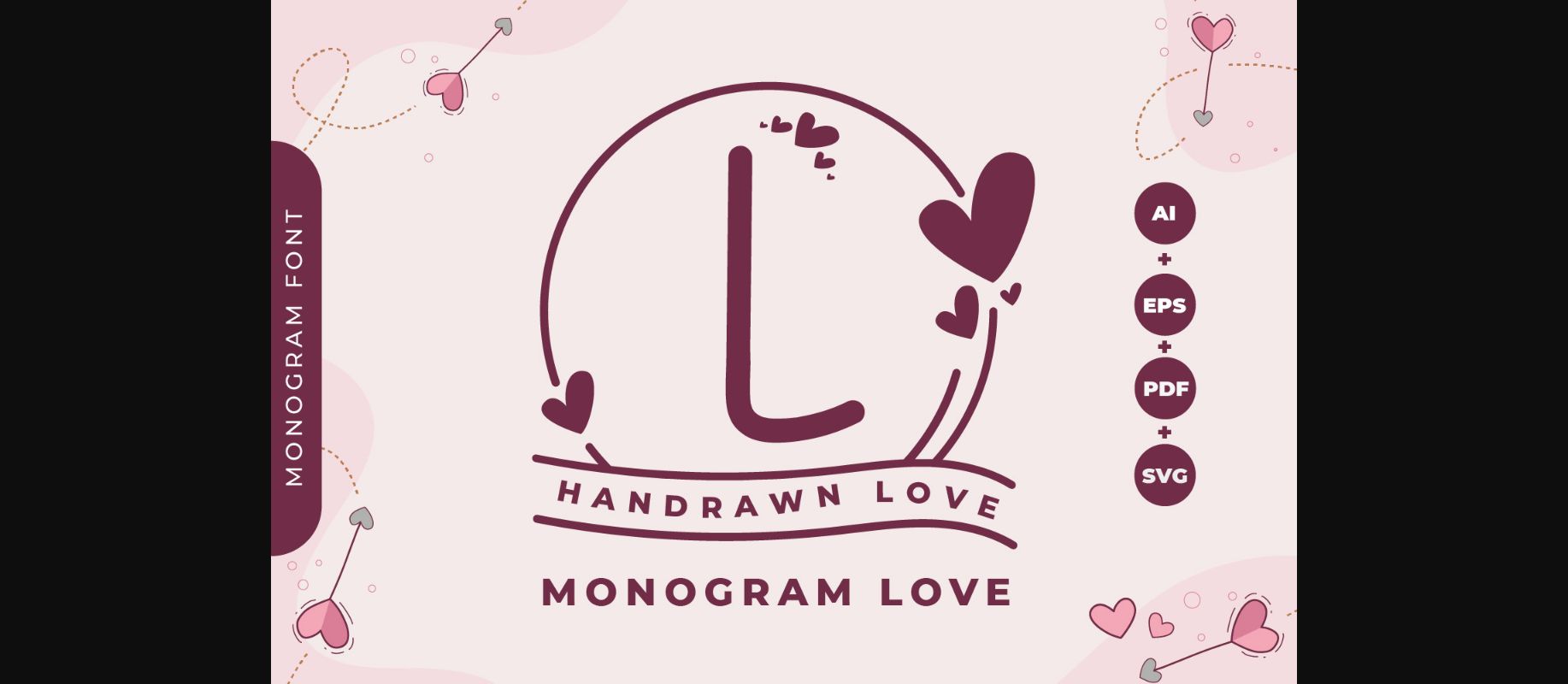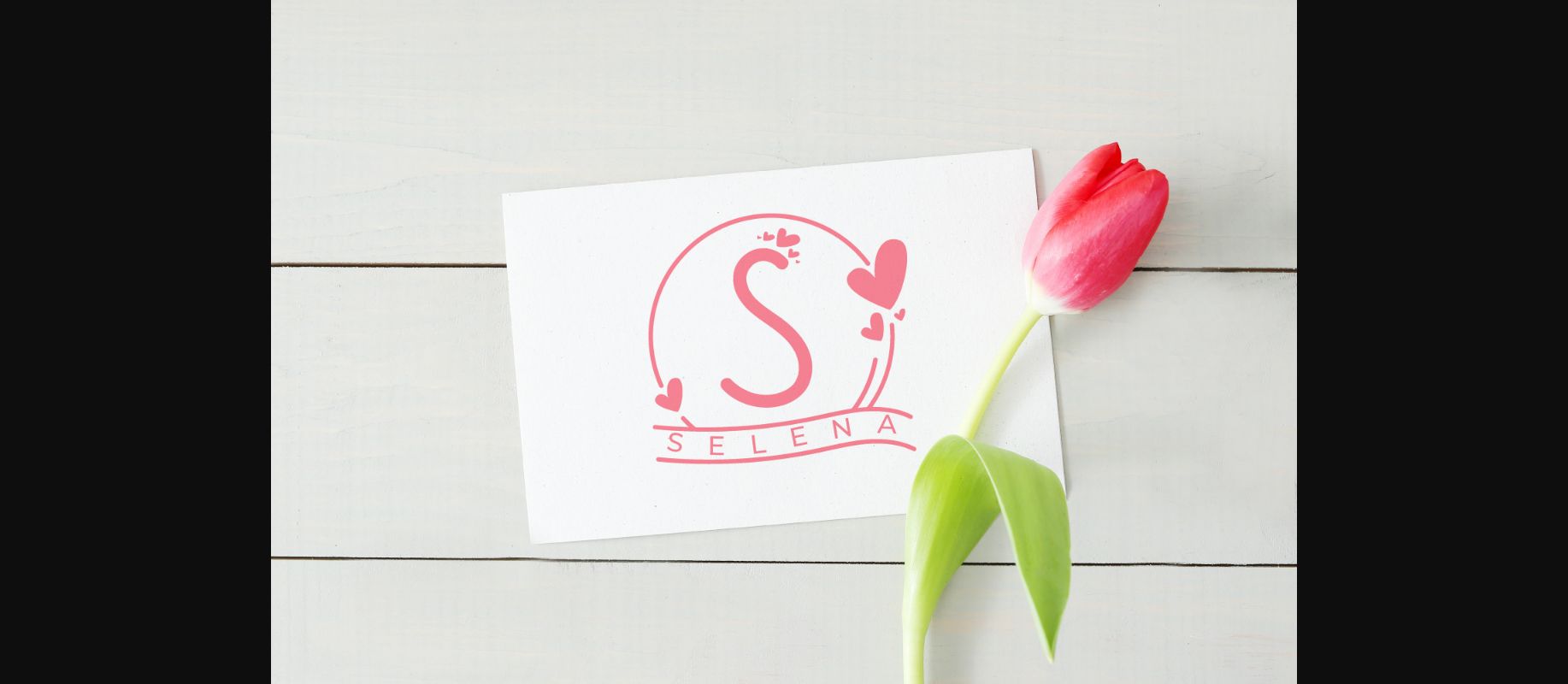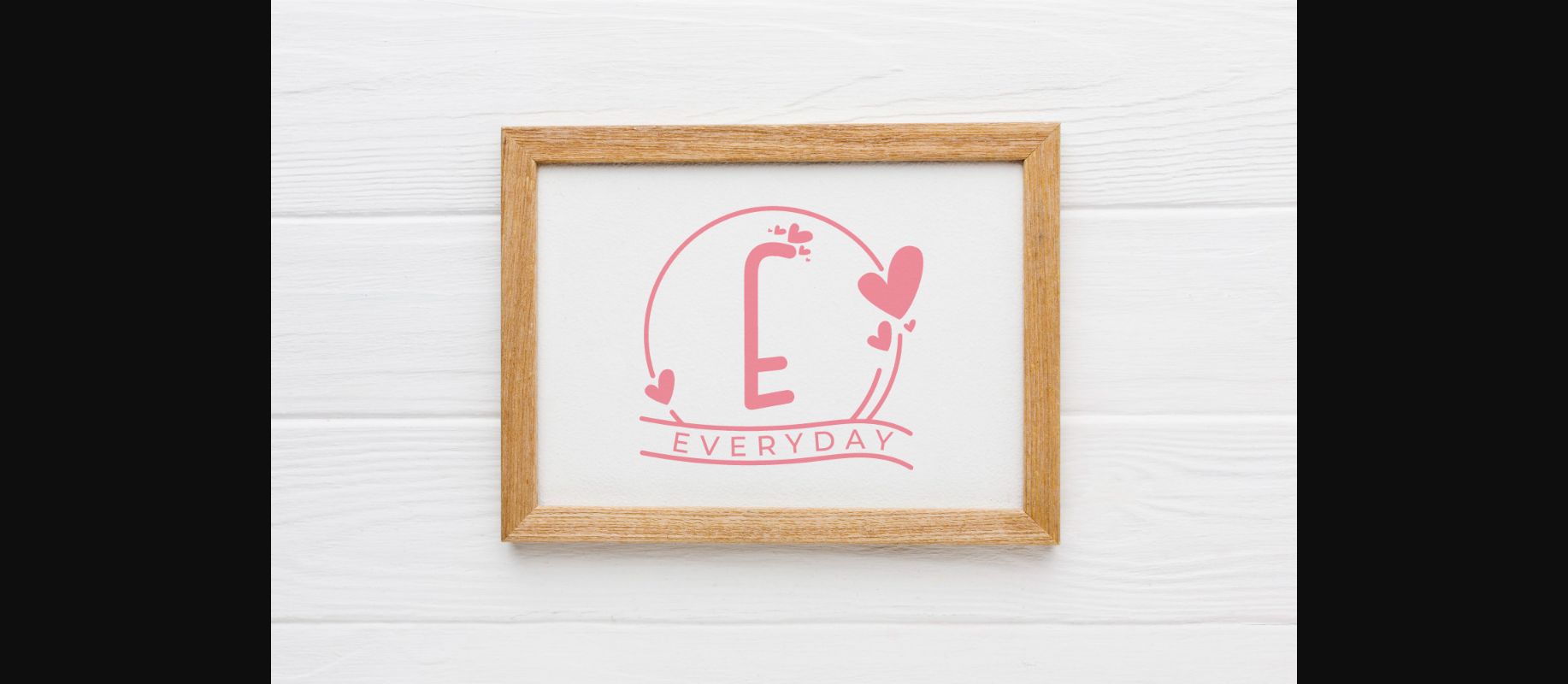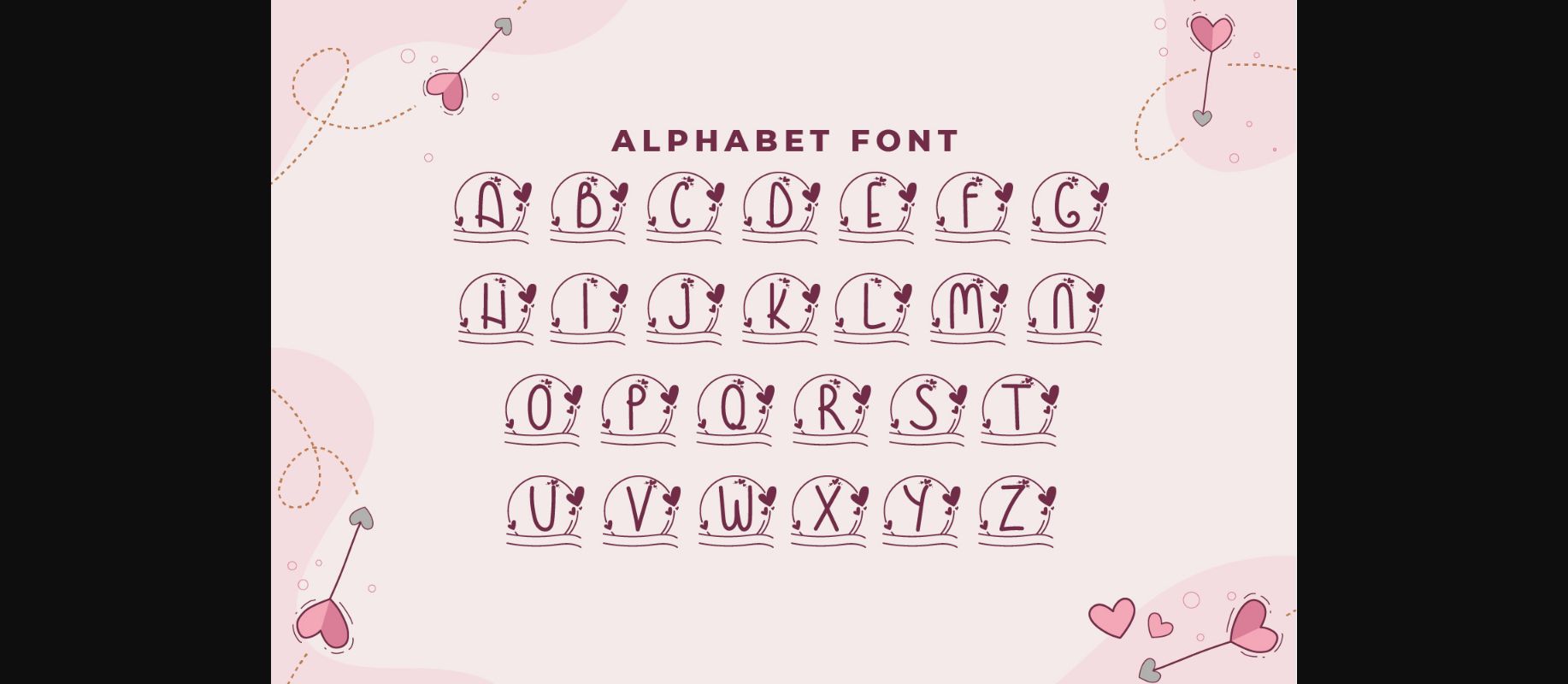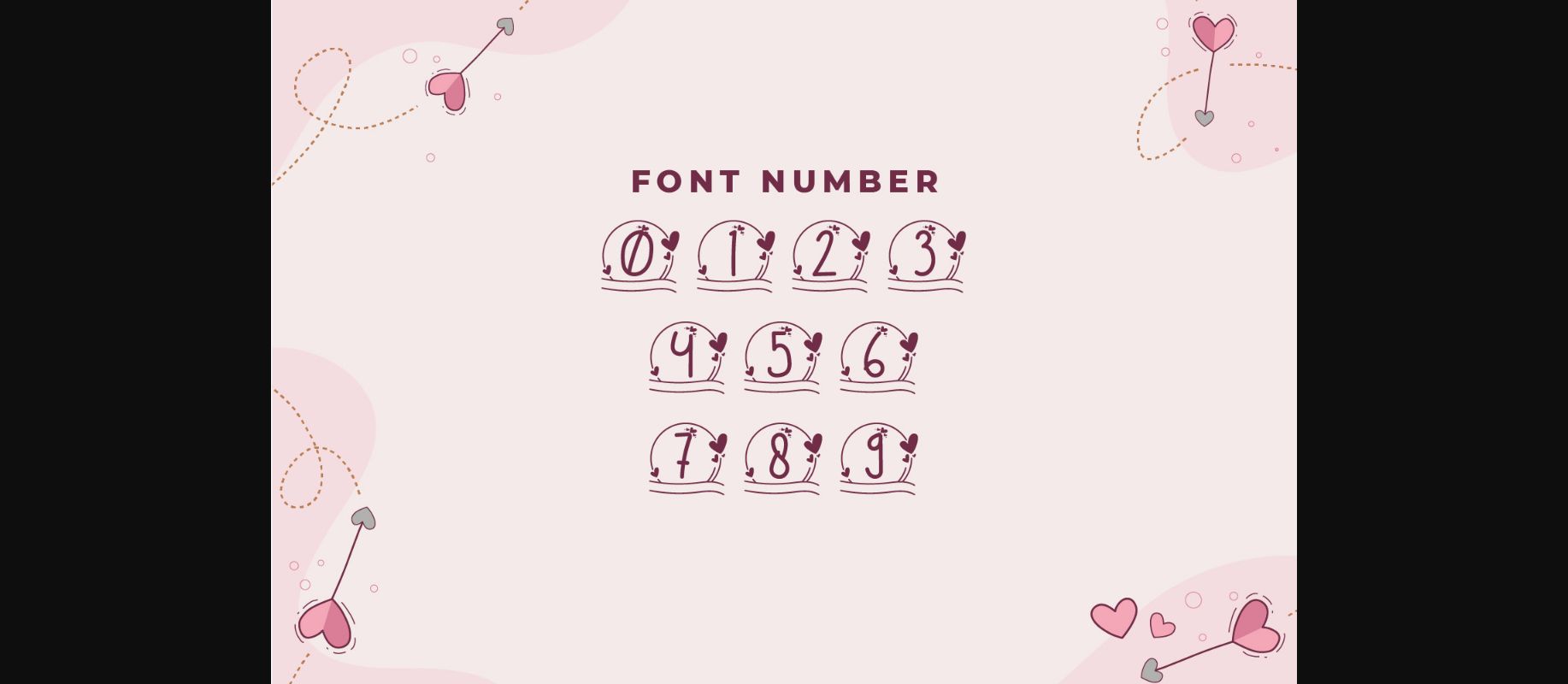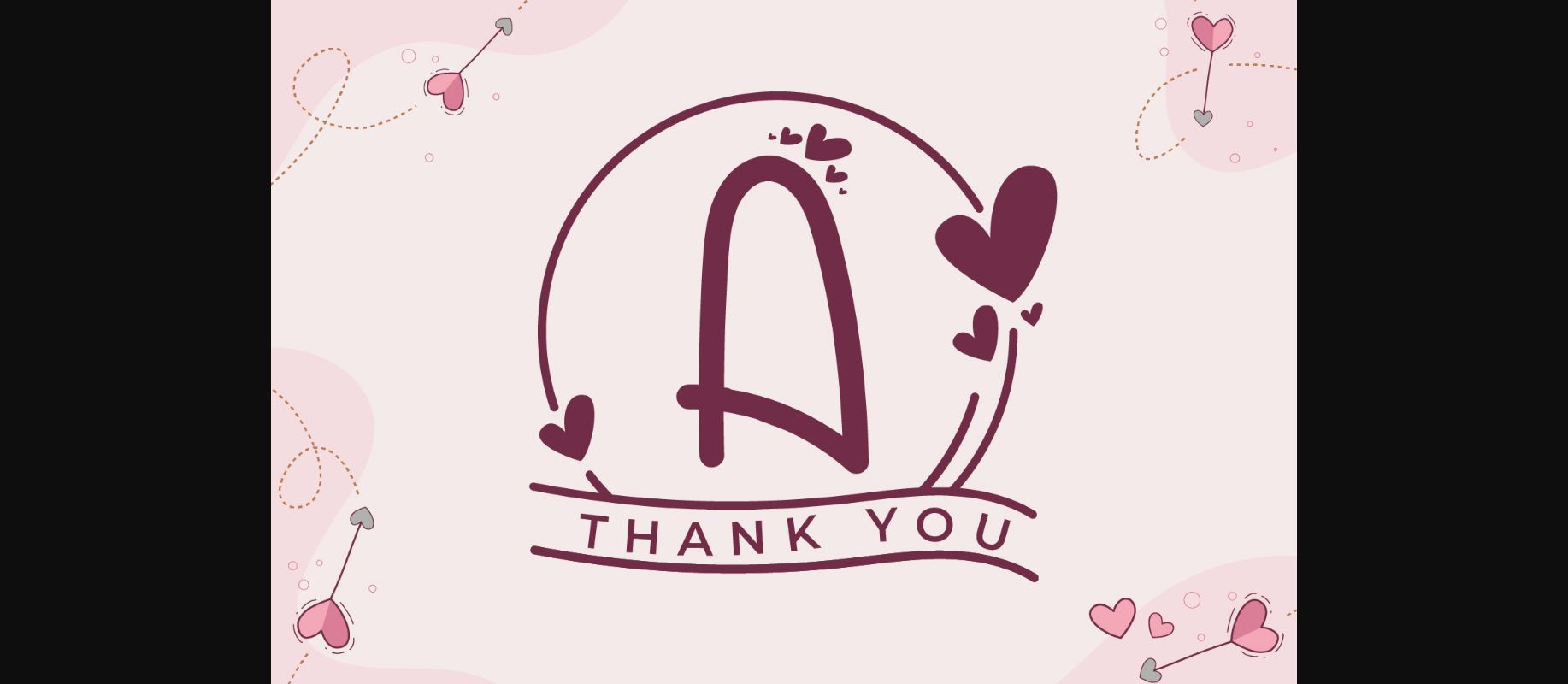
Monogram Handrawn Love Font
About Monogram Handrawn Love Font
Monogram Handrawn Love is a graceful decorative font. Add this romantic and lovely looking font to each of your love letters, wedding invitations or favorite design ideas, and you will be astounded by the outcome.